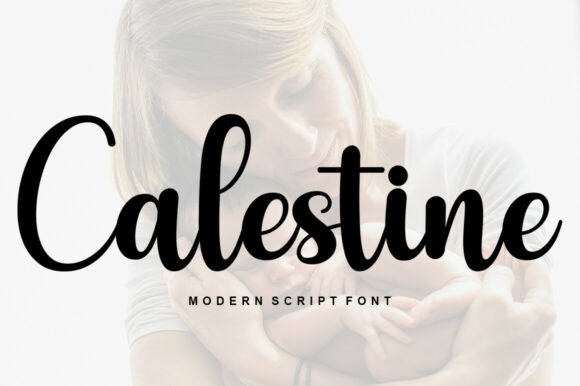
Introducing Calestine Font: The Perfect Handwritten Font for Romantic Designs
Are you looking for a font that can add a touch of elegance and romance to your designs? Look no further than Calestine Font. This beautiful, handwritten font is perfect for creating wedding invitations, cards, and other designs that require a personal and loving touch. In this article, we’ll take a closer look at Calestine Font, its features, and how you can use it to create stunning designs.
What is Calestine Font?
Calestine Font is a dainty and flowing handwritten font that is designed to add a touch of sweetness and joy to your designs. Its elegant and cursive style makes it perfect for creating romantic and personalized designs. Whether you’re designing a wedding invitation, a greeting card, or a social media post, Calestine Font is the perfect choice.
Key Features of Calestine Font
- Handwritten style: Calestine Font has a beautiful, handwritten style that gives it a personal and unique touch.
- Dainty and flowing: The font has a dainty and flowing design that makes it perfect for creating elegant and sophisticated designs.
- Sweet and joyful: Calestine Font is designed to add a touch of sweetness and joy to your designs, making it perfect for romantic and celebratory designs.
- Romantic and personalized: The font’s elegant and cursive style makes it perfect for creating romantic and personalized designs.
Use Cases for Calestine Font
Calestine Font is a versatile font that can be used for a variety of design projects. Here are some use cases where Calestine Font is particularly effective:
- Wedding invitations: Calestine Font is perfect for creating beautiful and elegant wedding invitations that set the tone for the big day.
- Greeting cards: The font’s sweet and joyful style makes it perfect for creating greeting cards for special occasions such as birthdays, anniversaries, and holidays.
- Social media posts: Calestine Font can be used to create romantic and personalized social media posts that are perfect for sharing special moments with friends and family.
- Branding and packaging: The font’s elegant and cursive style makes it perfect for creating beautiful and sophisticated branding and packaging designs.
Tips for Using Calestine Font
Here are some tips for using Calestine Font effectively in your designs:
- Use it for headings and titles: Calestine Font is perfect for creating beautiful and elegant headings and titles that add a touch of sophistication to your designs.
- Pair it with other fonts: Calestine Font can be paired with other fonts to create a unique and interesting design. Try pairing it with a sans-serif font for a modern and elegant look.
- Use it in combination with images: Calestine Font can be used in combination with images to create a beautiful and romantic design. Try using it with a photo of a couple or a romantic landscape.
- Experiment with colors: Calestine Font can be used with a variety of colors to create a unique and interesting design. Try using it with pastel colors for a soft and romantic look.
Calestine Font is a beautiful and elegant handwritten font that is perfect for creating romantic and personalized designs. Its dainty and flowing style makes it perfect for creating wedding invitations, greeting cards, and other designs that require a sweet and joyful touch. With its versatility and elegance, Calestine Font is a great addition to any designer’s font collection.
- What is Calestine Font?: Calestine Font is a dainty and flowing handwritten font that is designed to add a touch of sweetness and joy to your designs.
- What is Calestine Font used for?: Calestine Font is perfect for creating romantic and personalized designs such as wedding invitations, greeting cards, and social media posts.